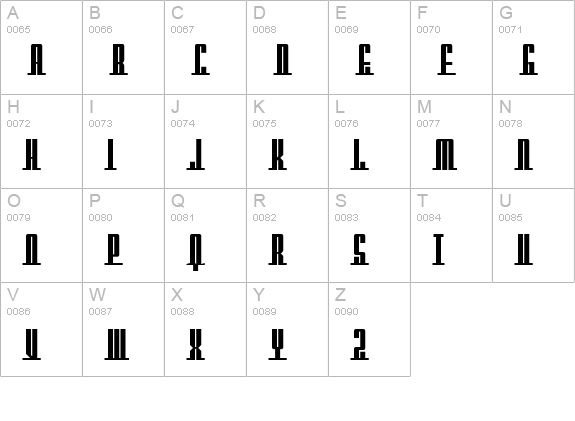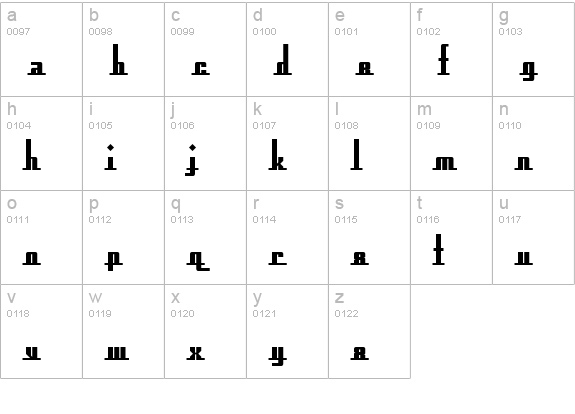
SF Americana Dreams Upright Bold Font Details
SF Americana Dreams Upright Bold is a strong, high-contrast variant in the SF typeface family \xE2\x80\x94 well suited to headlines, attention-grabbing titles, and strong calls-to-action.
SF Americana Dreams Upright Bold font is a magnificent typeface that effortlessly captures the essence of classic American typography. This bold and upright font is a tribute to the rich history and cultural heritage of the United States, encapsulating the spirit of the American dream. With its strong and commanding presence, SF Americana Dreams Upright Bold font is perfect for a wide range of design projects that require a touch of Americana nostalgia. Whether you're working on branding, packaging, posters, or headlines, this font will instantly transport your audience to an era of optimism and possibility. The bold weight of SF Americana Dreams Upright Bold font exudes confidence and strength, making it an ideal choice for designs that demand attention and make a lasting impact. Its clean lines and precise detailing ensure readability at any size, guaranteeing that your message will be conveyed with clarity and precision. What sets SF Americana Dreams Upright Bold font apart is not just its exceptional design, but also its accessibility. This font is freely available to download at FontsMarket.com, allowing designers and enthusiasts alike to bring their visions to life without any restrictions. Now, you can embrace the spirit of the American dream with this remarkable font, without any limitations. So whether you're creating a vintage-inspired logo, a patriotic poster, or a bold headline that demands attention, SF Americana Dreams Upright Bold font is the perfect choice. With its timeless appeal and the freedom to download it for free at FontsMarket.com, this font is a true embodiment of the American dream.